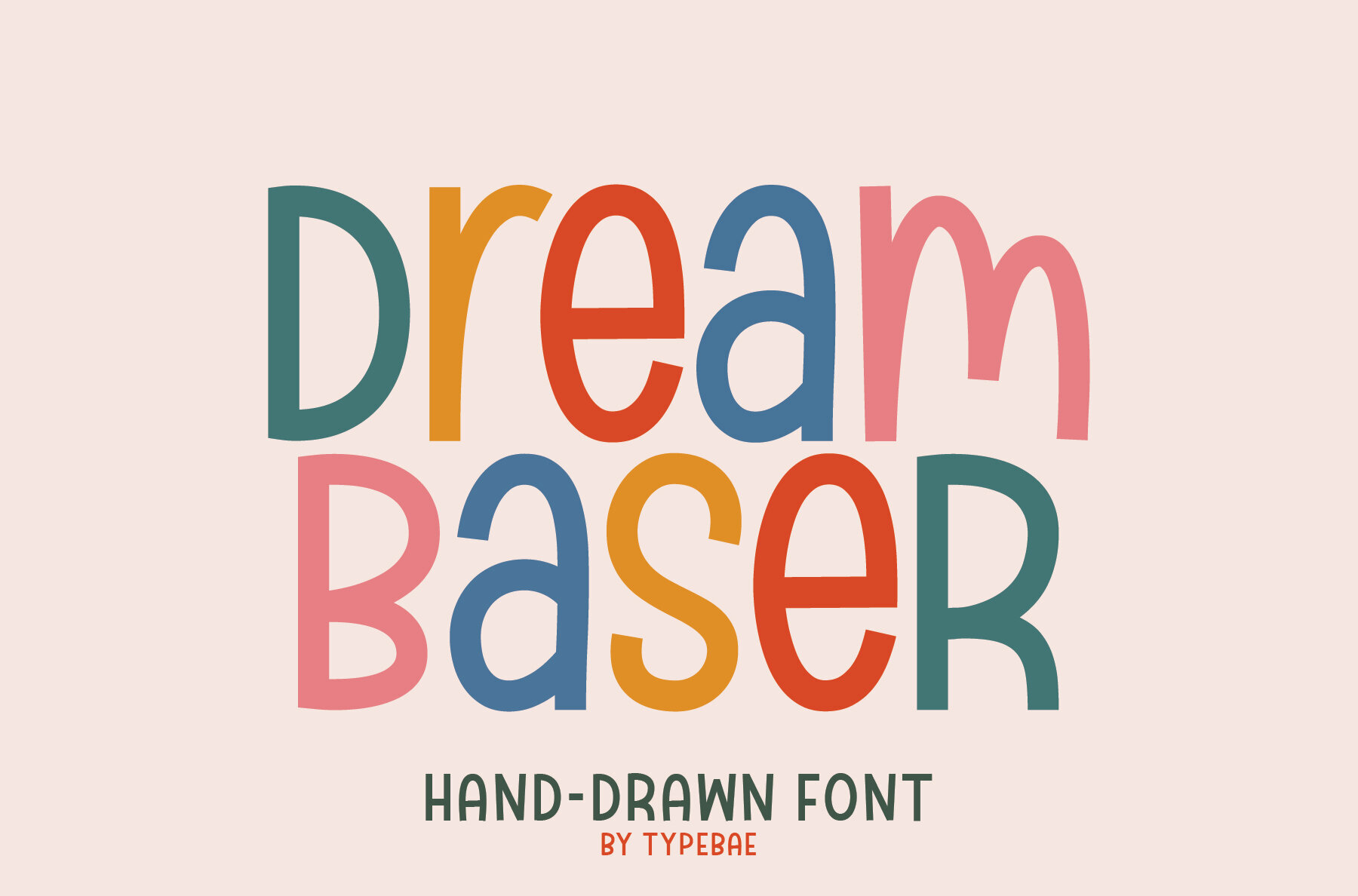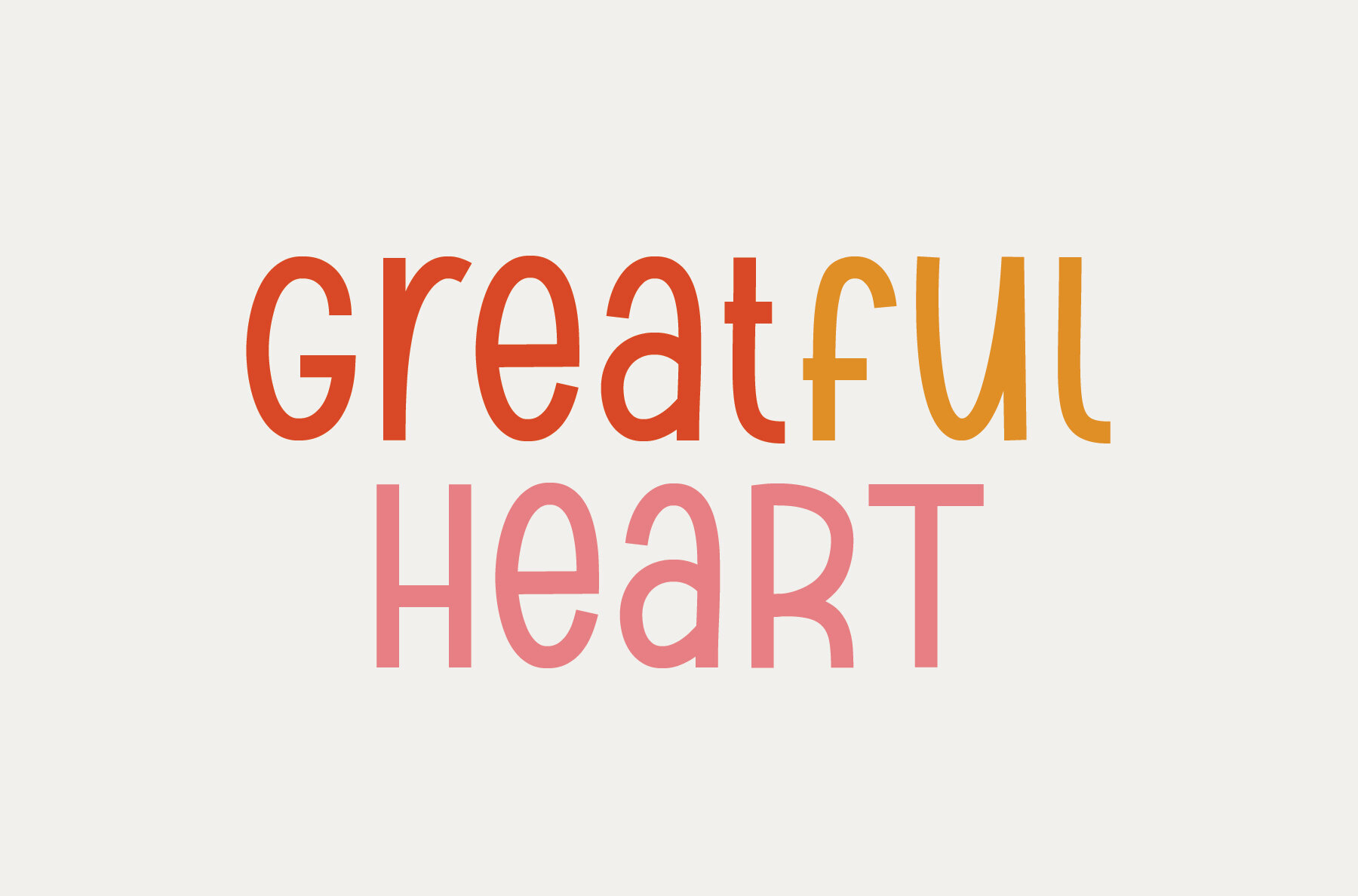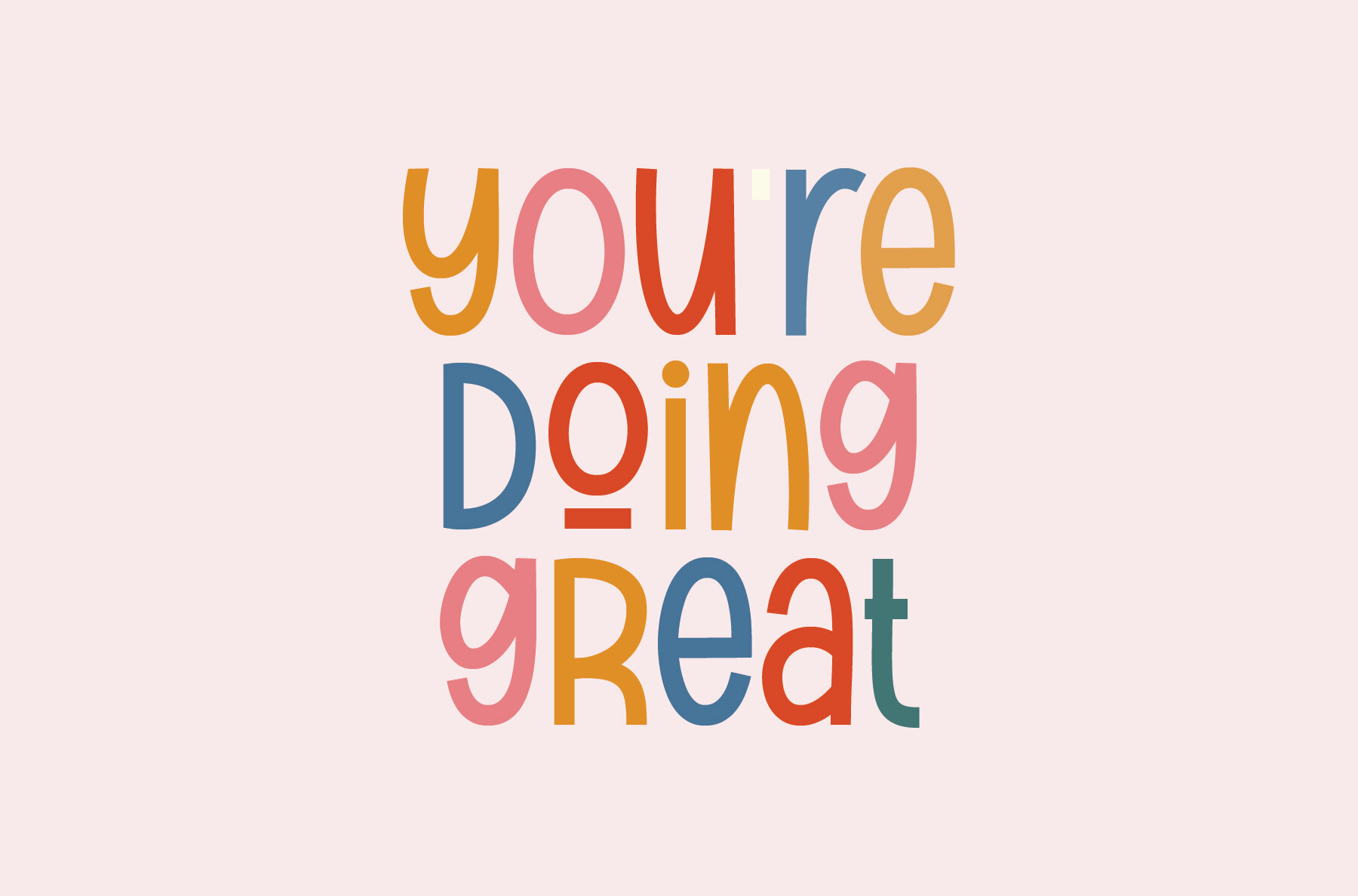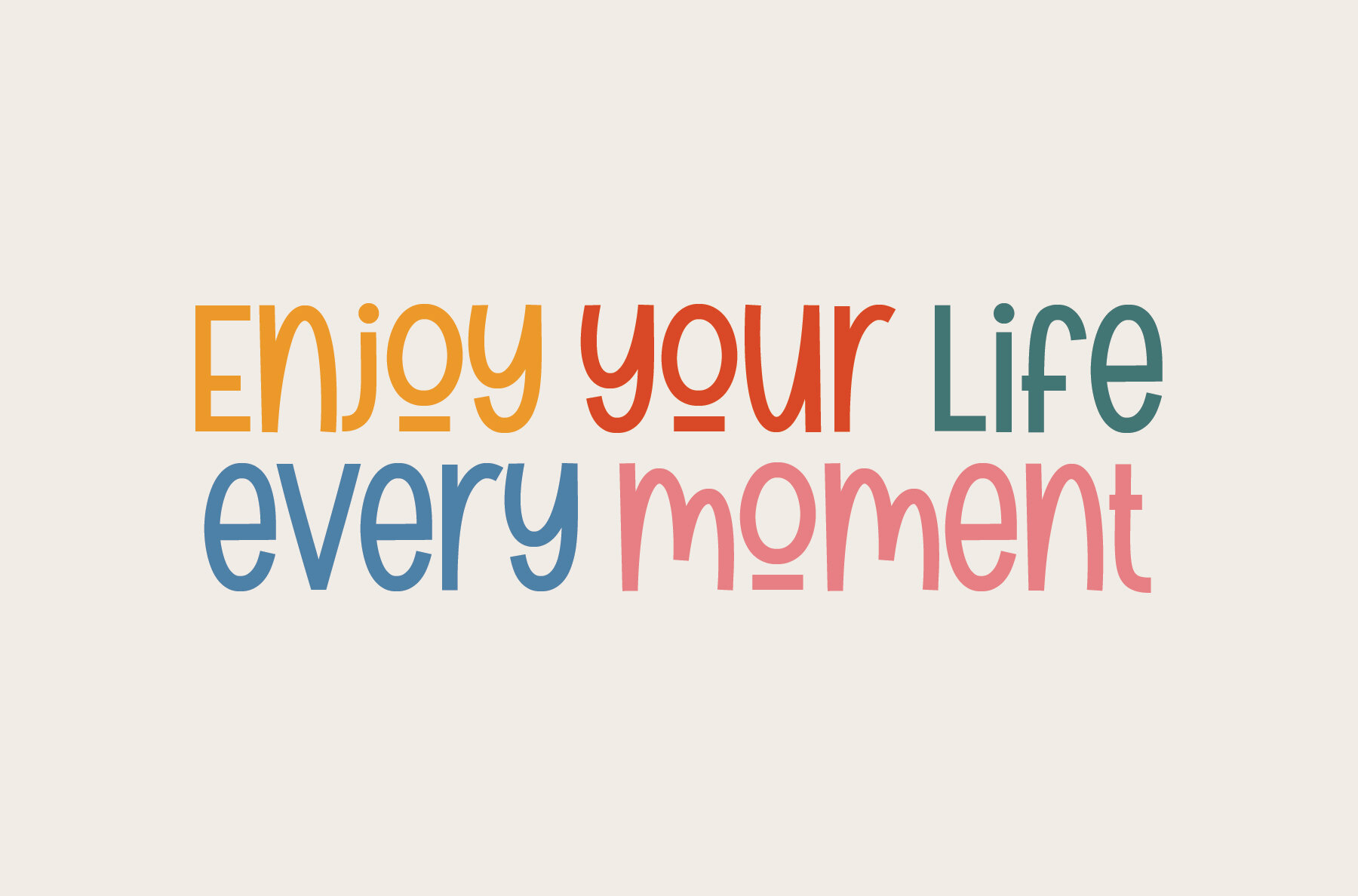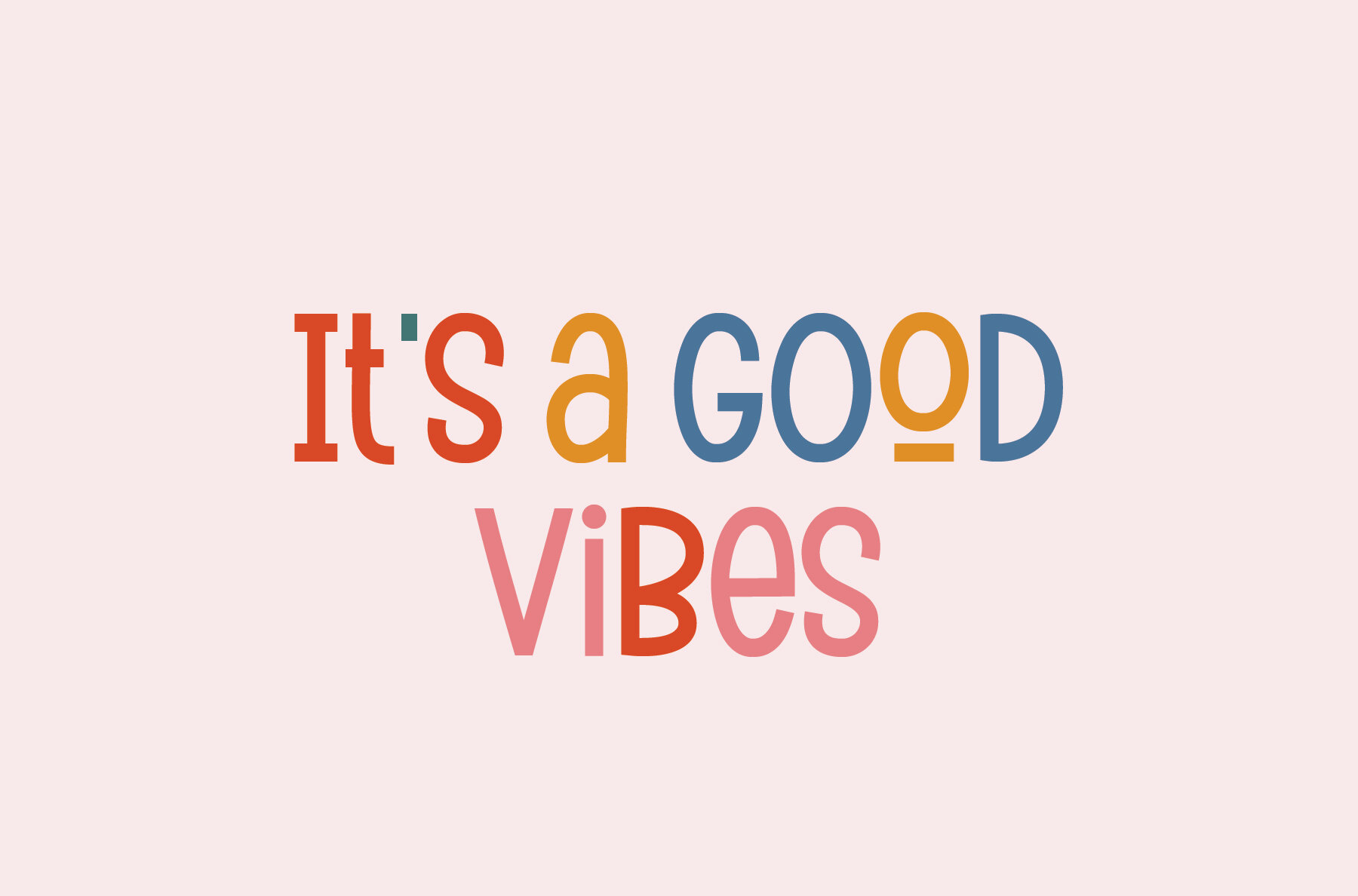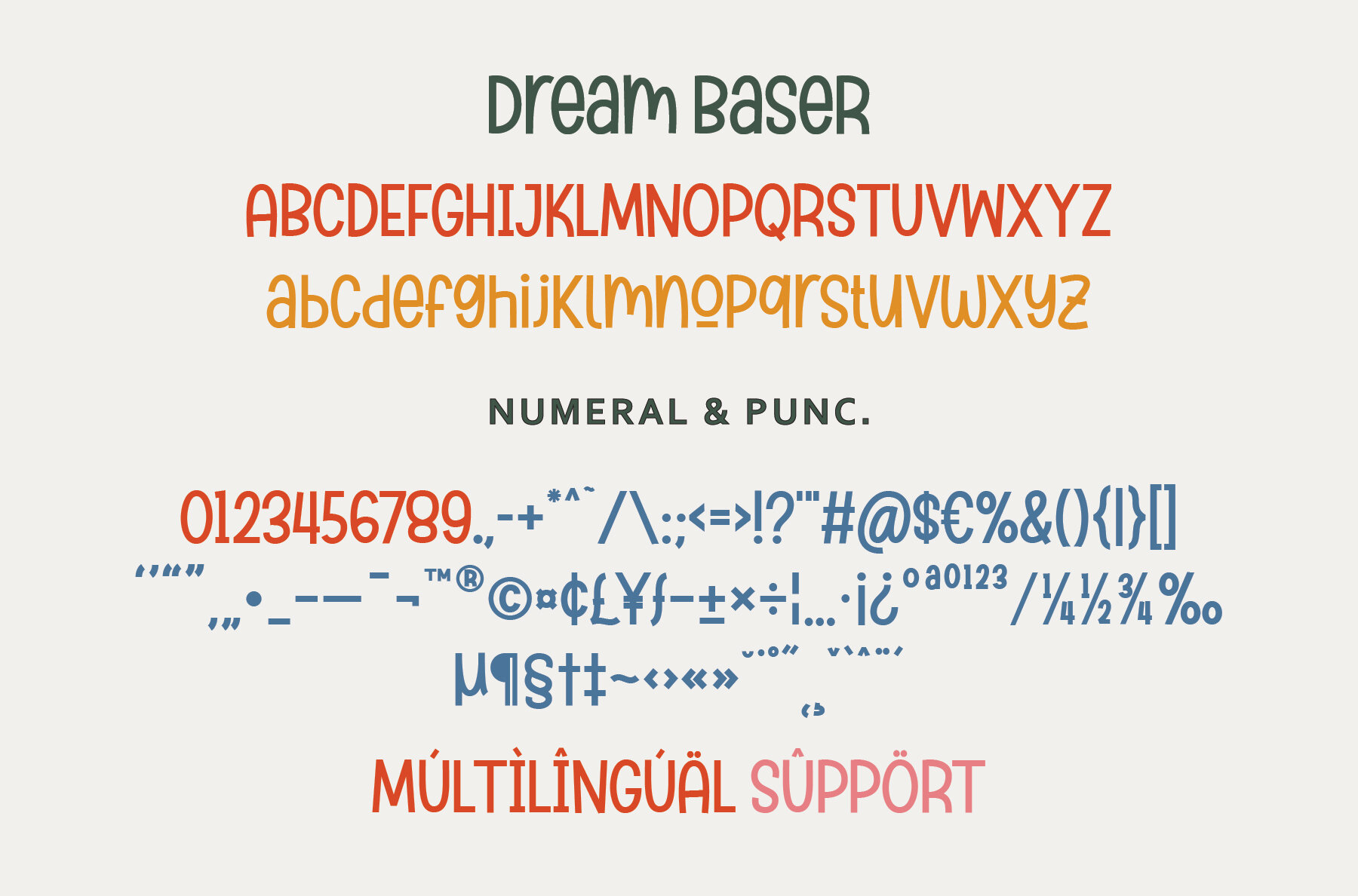
Dream Baser Font
Dream Baser Light
Dream Baser Regular
Dream Baser Bold
Dream Baser brings a lively, hand-drawn character to any creative project. Its playful style stands out in headlines, posters, kids' designs, and social media graphics. The font’s balanced curves and approachable forms offer an easy way to inject fun into your work while maintaining legibility. Available in Light, Regular, and Bold weights, Dream Baser adapts to a range of design styles. Each character comes thoughtfully crafted for uppercase, lowercase, numerals, and punctuation. The font is fully PUA encoded and supports multilingual usage, making it ready for projects with a global focus.Dream Baser Hand-Drawn Display Font